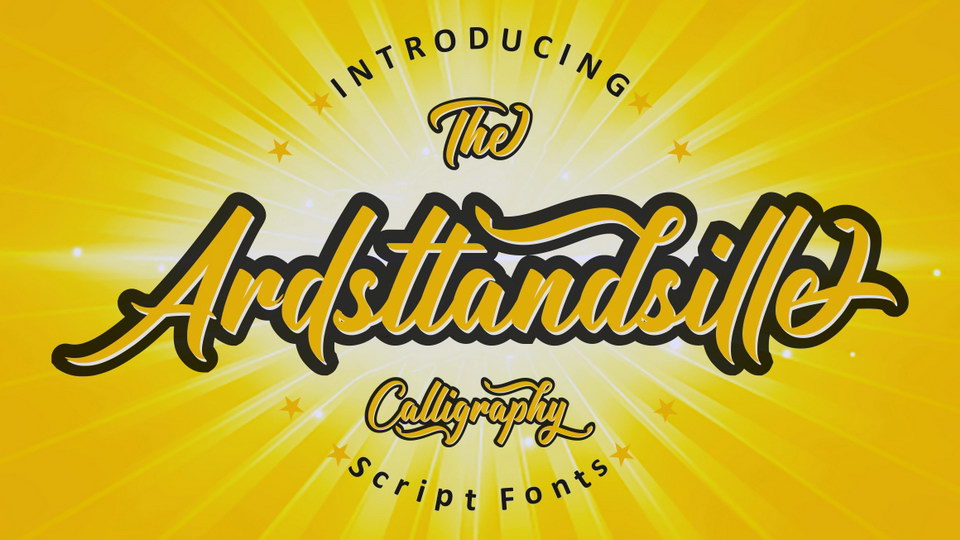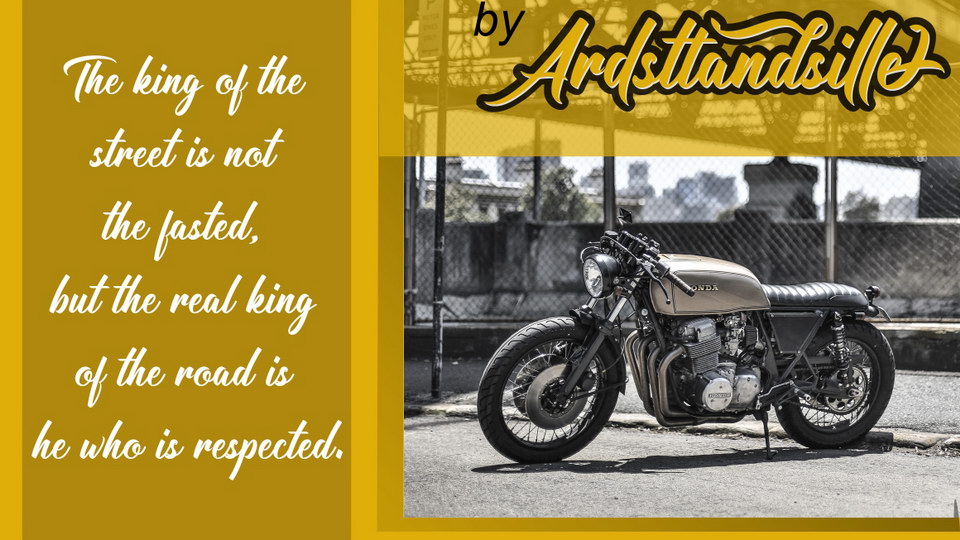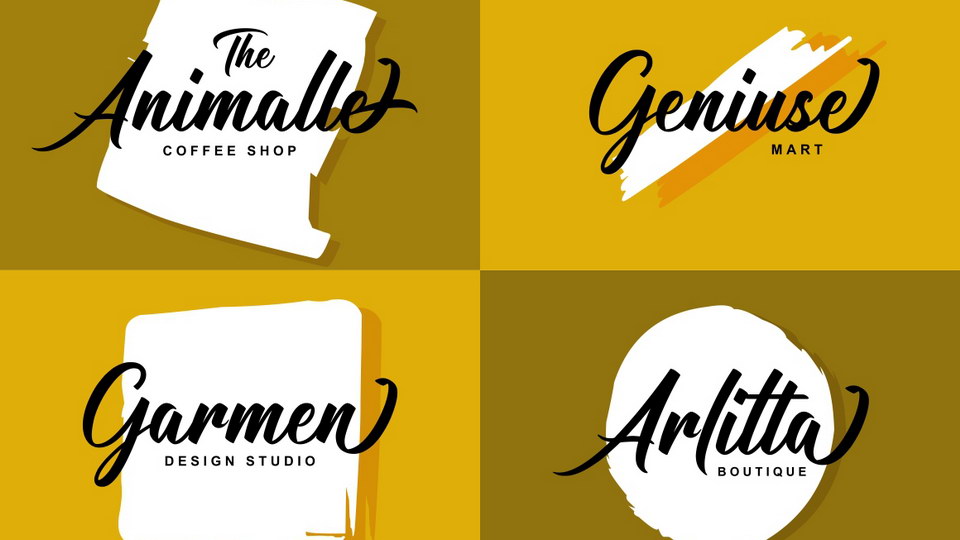
Ardsttandsille is a bold and strong script font carefully crafted with calligraphy style that contains many stylistic alternate that will help you to create your own customized design.
Ardsttandsille font has unique look and is perfect for branding, logotype and other design needs, like for quotes, merchandise, packaging, business card and many other project.